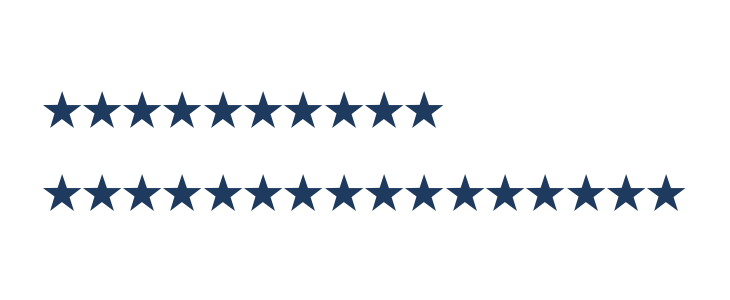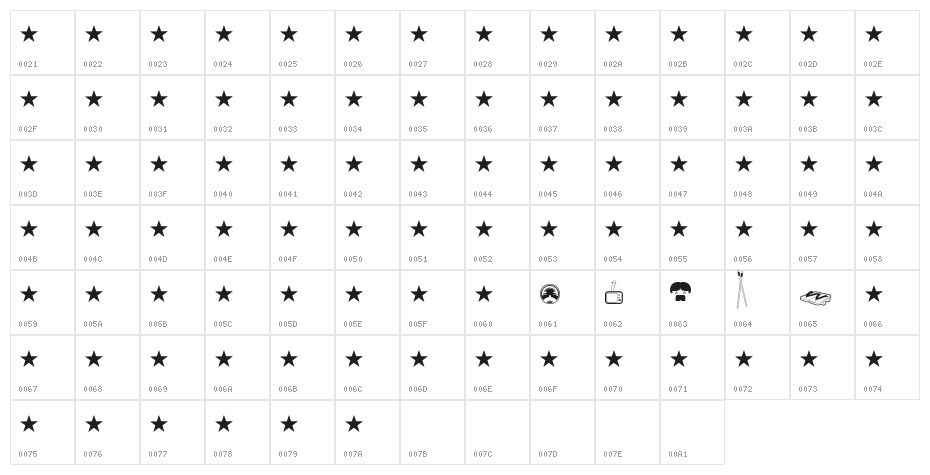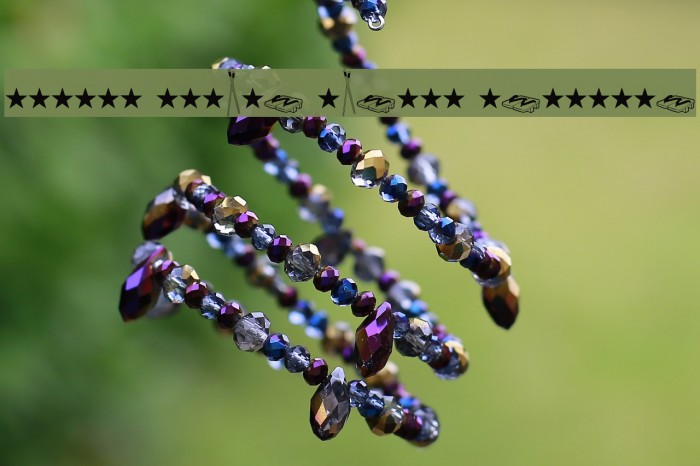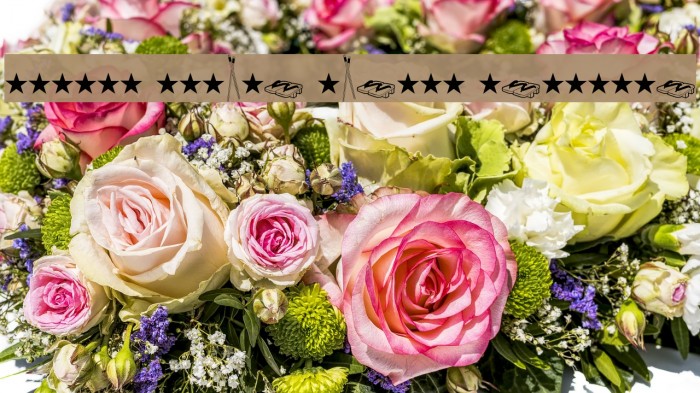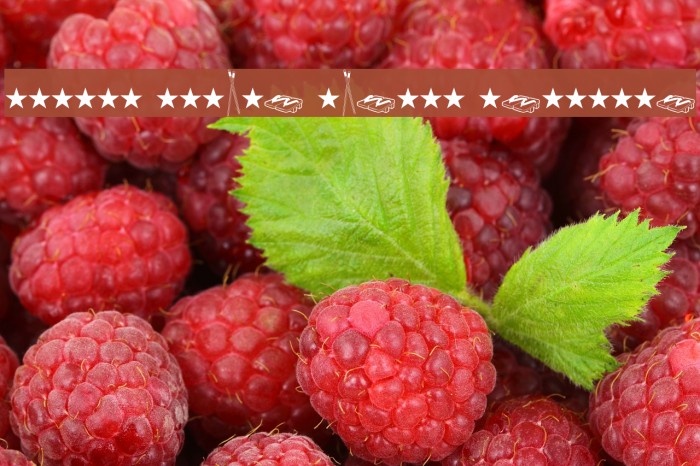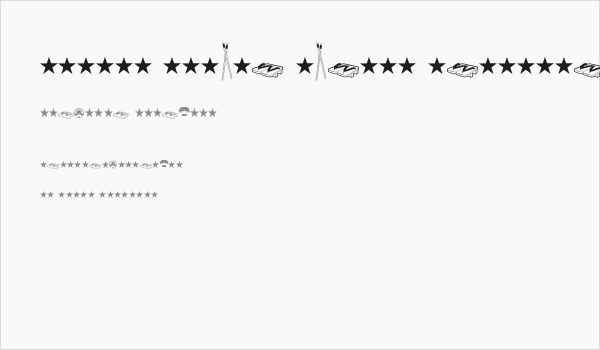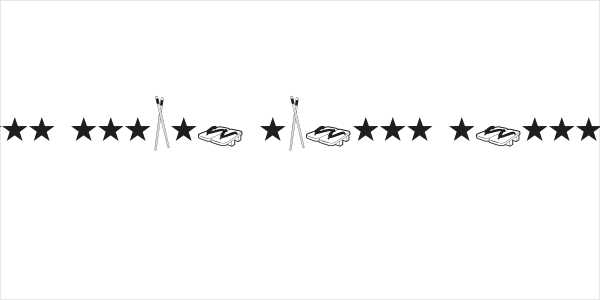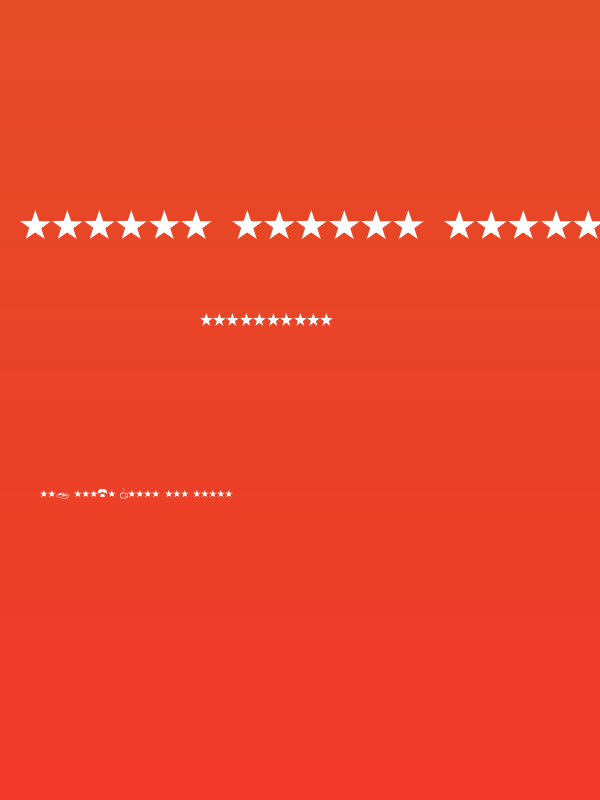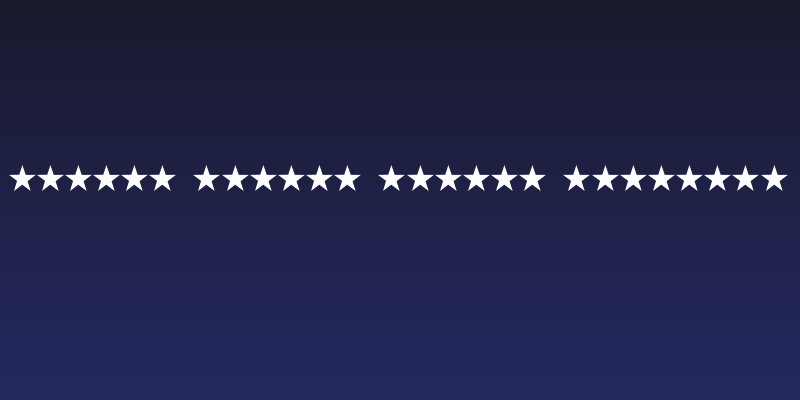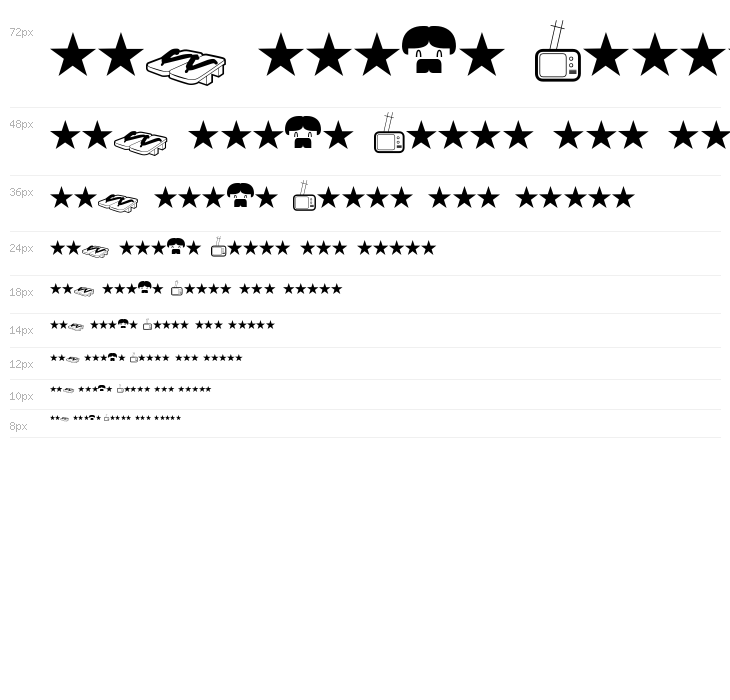
Nippon Noodle [demo] fenotype Font
Nippon Noodle [demo] fenotype Description
This is a decorative dingbat font featuring bold, solid black star shapes and a set of playful Japanese-themed icons, including a face, TV, sushi, and chopsticks. The icons are simple, cartoon-like, and highly stylized, designed for visual impact rather than text readability.
| Overall Style | Decorative, Playful, Thematic |
| Use Case | Icons, Decorative elements, Themed graphics |
| Proposed Projects | Posters, event flyers, restaurant menus, themed party invitations, branding for Japanese cuisine. |